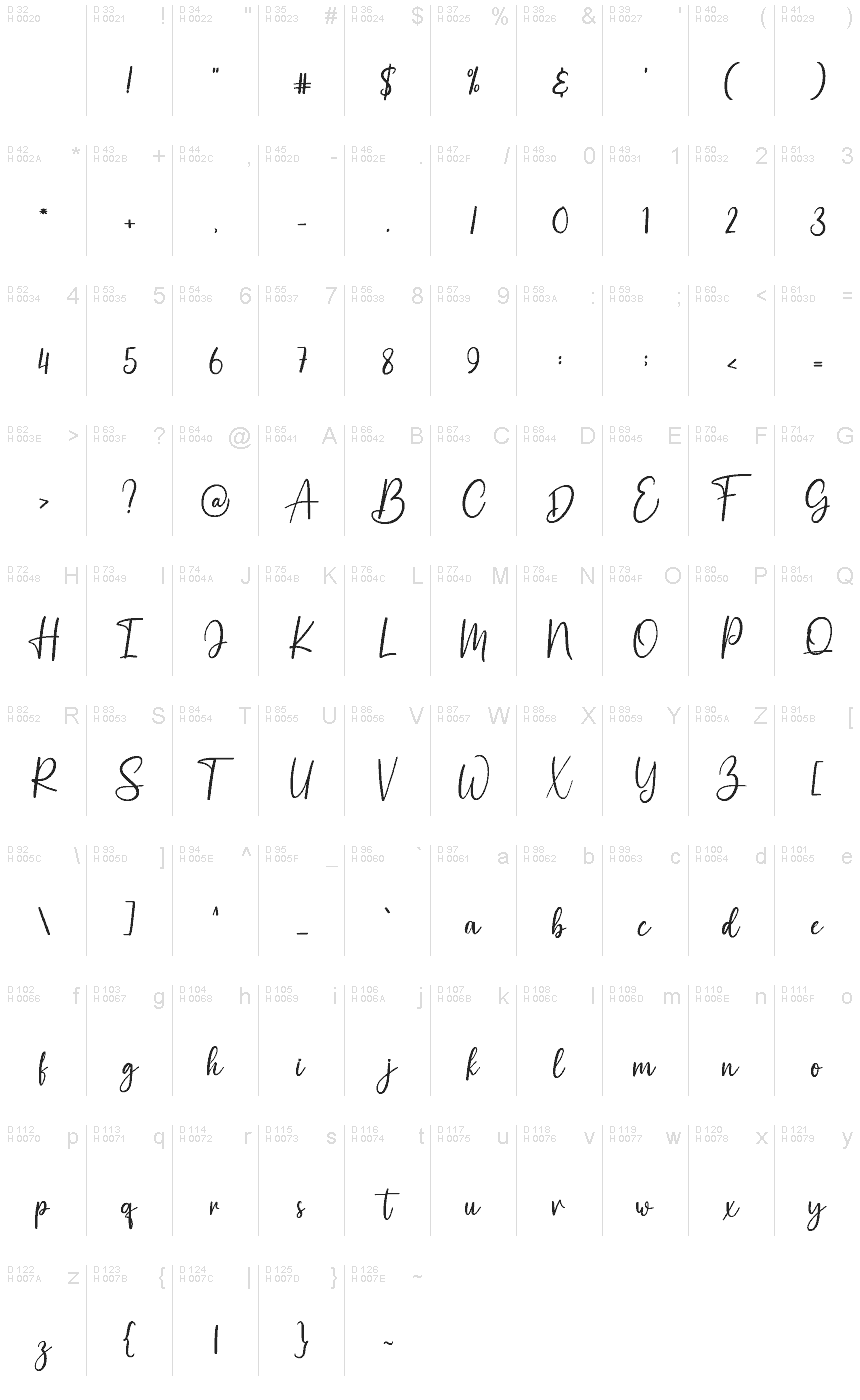
Queen Maritta
Queen Maritta font by Goodrichees is a free handwritten font with smooth letter formations. With styles inspired by a modern handwriting style, the font presents an overall elegant and fluid appearance. Whether read closely or from afar, it can easily entice audiences with its expressive designs that combine elements of both casualness and stylish sophistication.
Have fun using Queen Maritta in pen-pal letters you wish to send to old friends or in product labels for cosmetic brands. You can also feature this beauty in logos, invitation cards, stationery products, flyers, advertisements of all sorts, magazines covers, branding projects, posters designs etc..